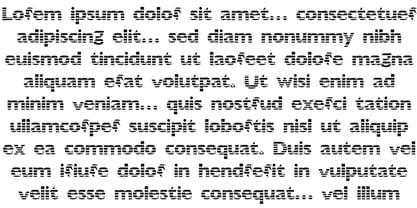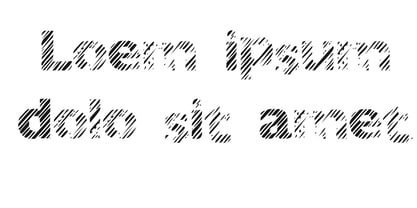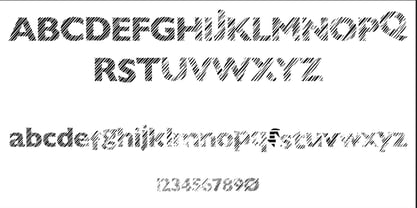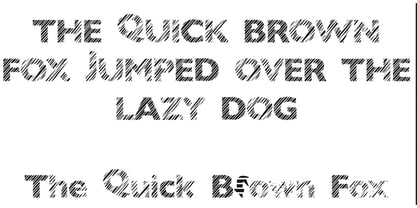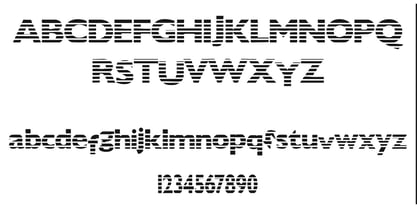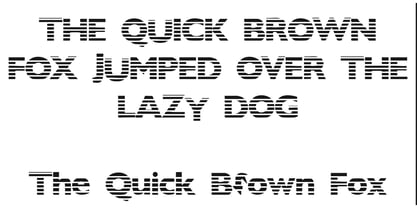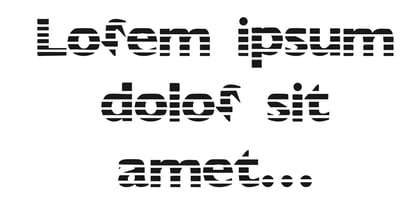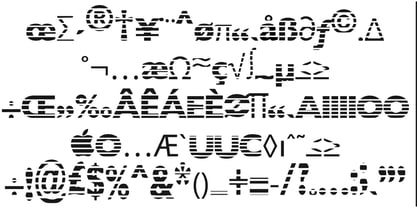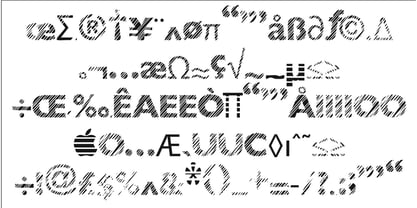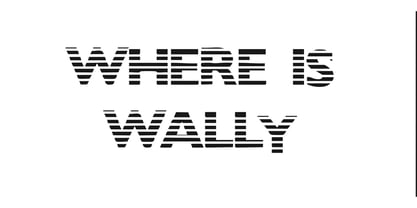
Diagonalalley
by Jointype
The Diagonalalley Font Family was designed by Jeremy Gill-Praba and published by Jointype. Diagonalalley contains 2 styles.
This type of font emphasizes strong vertical strokes and sharp diagonal elements, giving it a sense of stability and dynamic movement at the same time. The absence or minimization of horizontal curves creates a mechanical, modern, and architectural feel. Key characteristics: Vertical emphasis: Letters are tall, with straight upright stems that convey strength and order. Diagonal construction: Diagonal strokes (as seen in letters like “A”, “V”, “K”, or “N”) are prominent, adding tension and energy to the letterforms. Minimal curvature: Rounded shapes are either flattened or replaced with angular cuts, resulting in a crisp, faceted appearance. Geometric structure: The design often follows strict geometric principles, producing a precise and disciplined rhythm. Modern and technical tone: Fonts of this type are often used in branding for technology, architecture, or fashion, where sharpness and sophistication are desired. Example fonts: Futura Black (geometric with strong verticals and diagonals) Neon Tubes, Bebas Neue, or Exo 2 (modern interpretations) Avant Garde Gothic Bold (when stylized with angular alternates)
Designers: Jeremy Gill-Praba
Publisher: Jointype
Foundry: Jointype